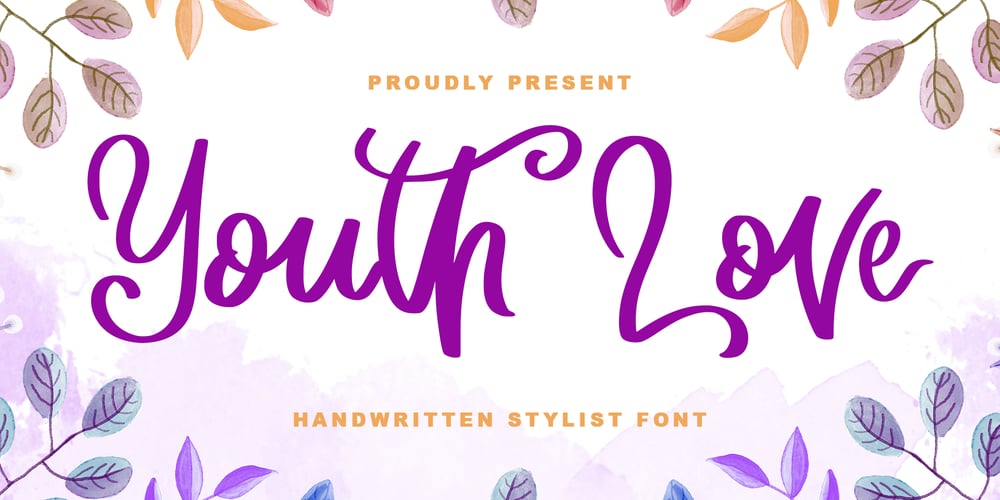
Youth Love Font Family was designed by Alif Ryan Zulfikar and published by Sakha Design. Youth Love contains 2 styles and family package options. Youth Love is a lovely and cute handwritten script font that impresses through its natural and elegant style. Add it to your most creative ideas, and notice how it transforms them into authentic pieces of art!